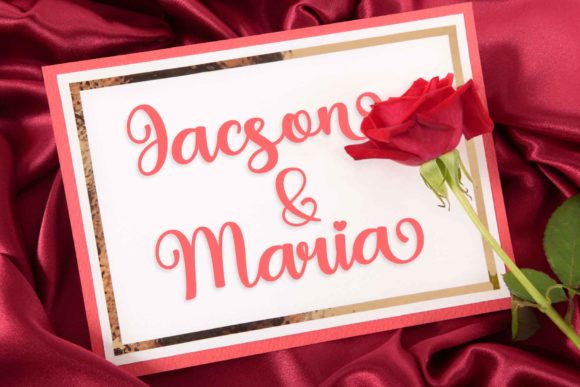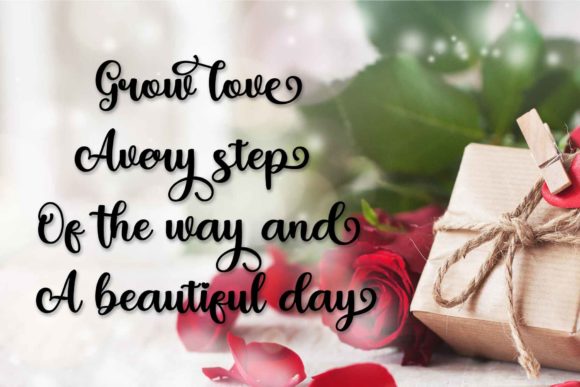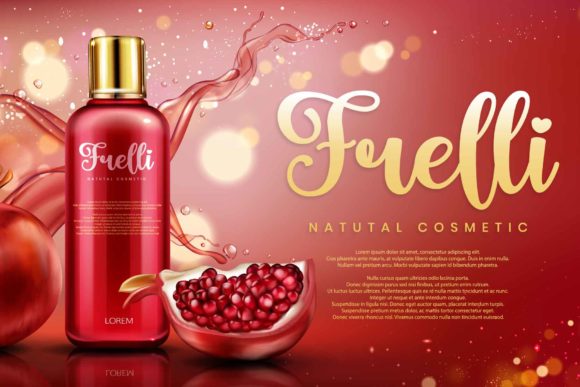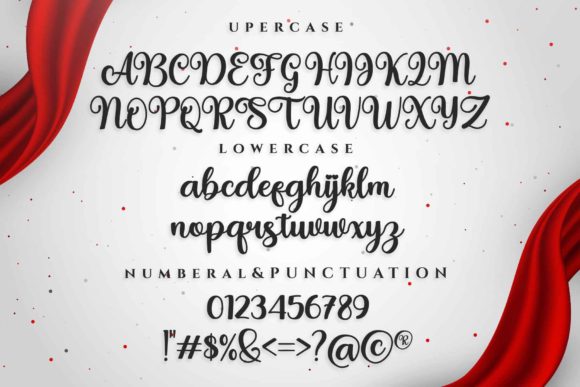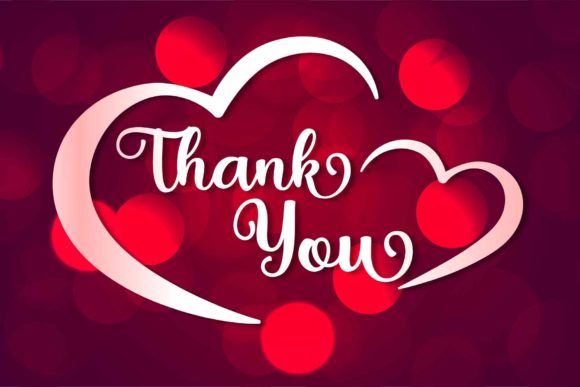
About Angelisa Font
Angelisa is a beautifully distinct and delicate handwritten font that adds a timeless elegance to your projects. With its refined style and attention to detail, this font is designed to enhance the overall beauty and sophistication of your designs.
Angelisa’s unique and graceful letterforms make it stand out among other fonts. The flowing strokes and intricate details give it a sense of delicacy and charm. Whether you’re designing wedding invitations, branding materials, greeting cards, or any other project that requires a touch of elegance, Angelisa is the perfect choice.
The versatility of Angelisa allows it to be used in a wide range of design contexts. From luxurious branding and high-end packaging to romantic wedding stationery and heartfelt quotes, this font adapts effortlessly to various themes and aesthetics. Its timeless appeal ensures that it remains a relevant and captivating choice for years to come.
One of the notable features of Angelisa is its PUA encoding, which allows easy access to all the glyphs and swashes. This means you can effortlessly customize your designs and add decorative elements to create a truly unique and personalized look. Whether you’re adding swashes, ligatures, or alternate characters, Angelisa gives you the freedom to explore and experiment with different design possibilities.
In addition to its distinctive style, Angelisa is also highly readable and legible. The balanced letterforms and appropriate spacing make it suitable for both headlines and body text, ensuring that your message is communicated effectively to your audience. Its timeless and classic appearance adds a touch of sophistication to your designs without compromising on readability.
Whether you’re working on print or digital projects, Angelisa delivers stunning results. Its delicate and refined style adds a sense of elegance and professionalism, making it a great choice for a variety of design applications. From logos and branding materials to editorial designs and social media graphics, Angelisa elevates your projects and makes them visually captivating.
In conclusion, Angelisa is an incredibly distinct and timeless handwritten font that enhances the beauty of your projects. With its delicate and refined style, PUA encoding for easy access to glyphs and swashes, and versatile usage, Angelisa adds a touch of elegance and sophistication to your designs. Fall in love with Angelisa and let its unique charm elevate your creative endeavors.